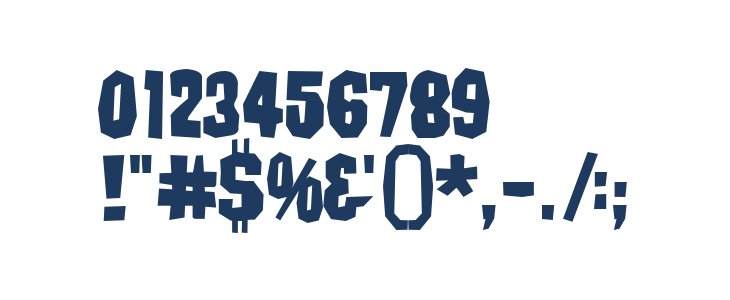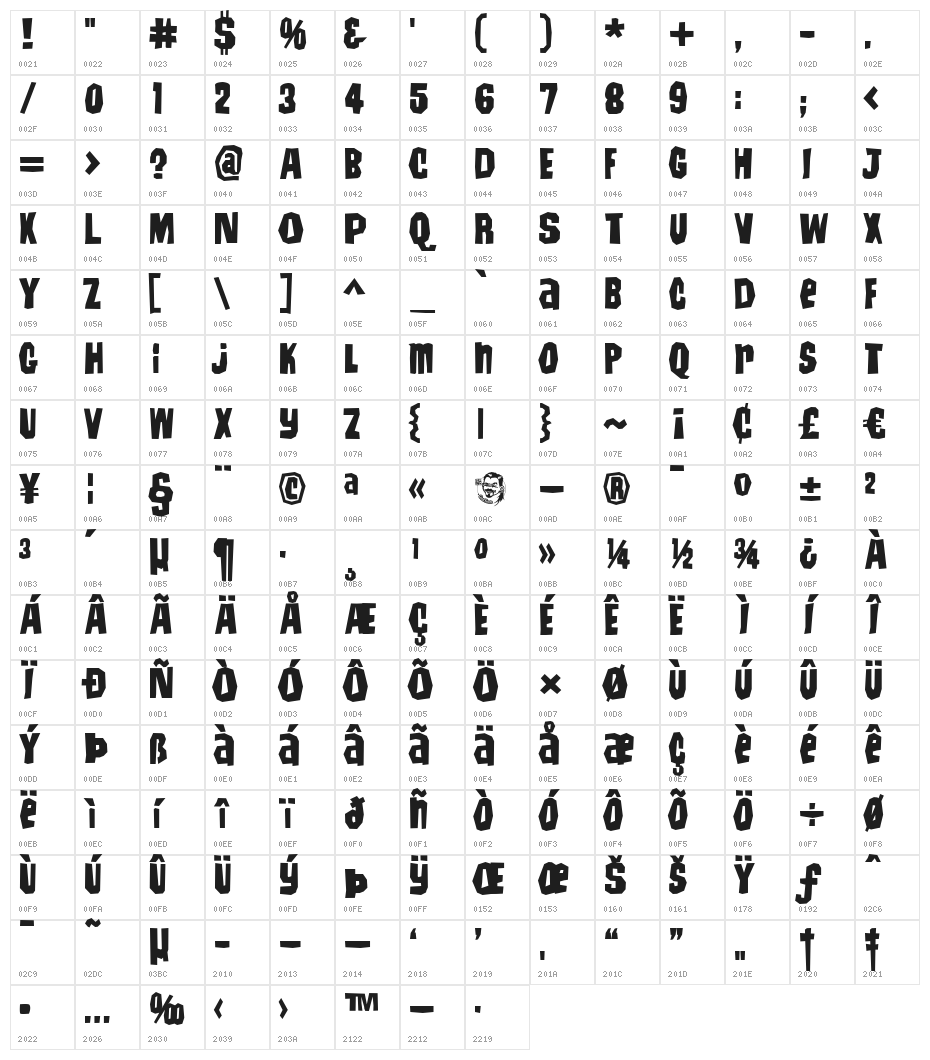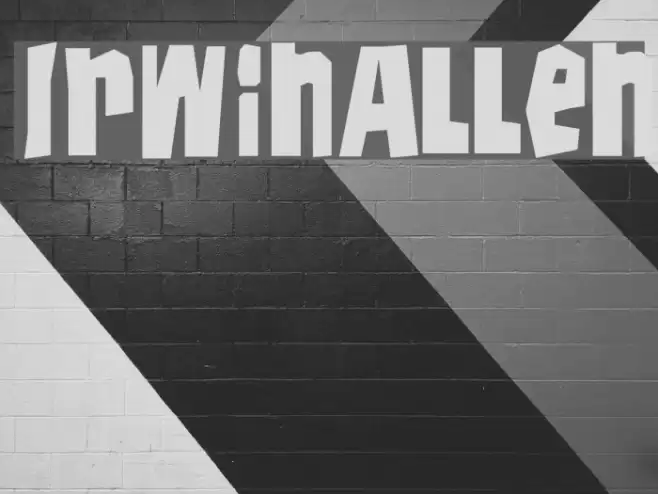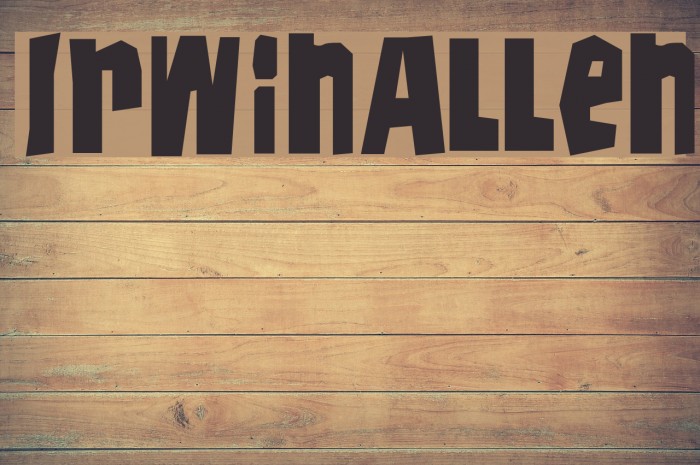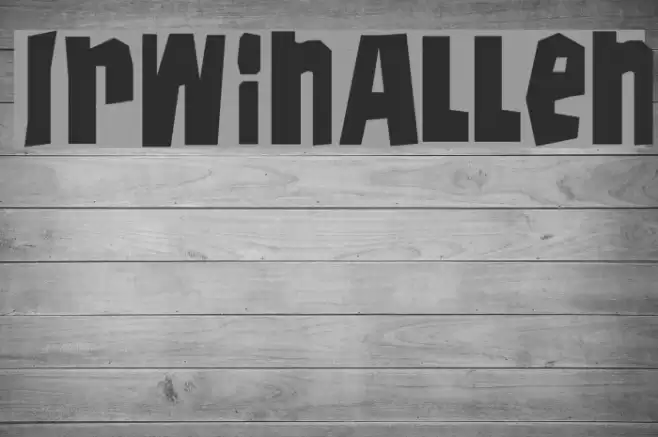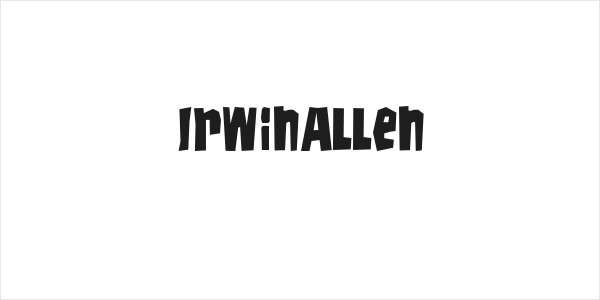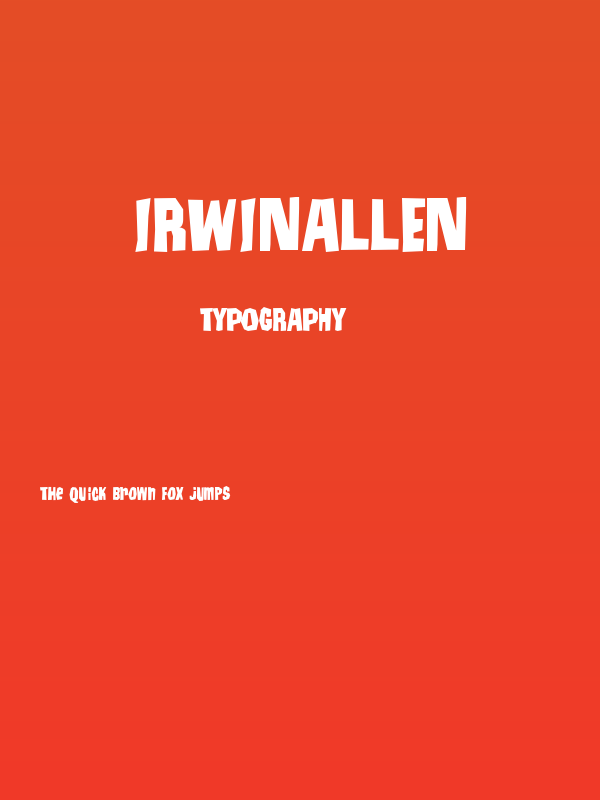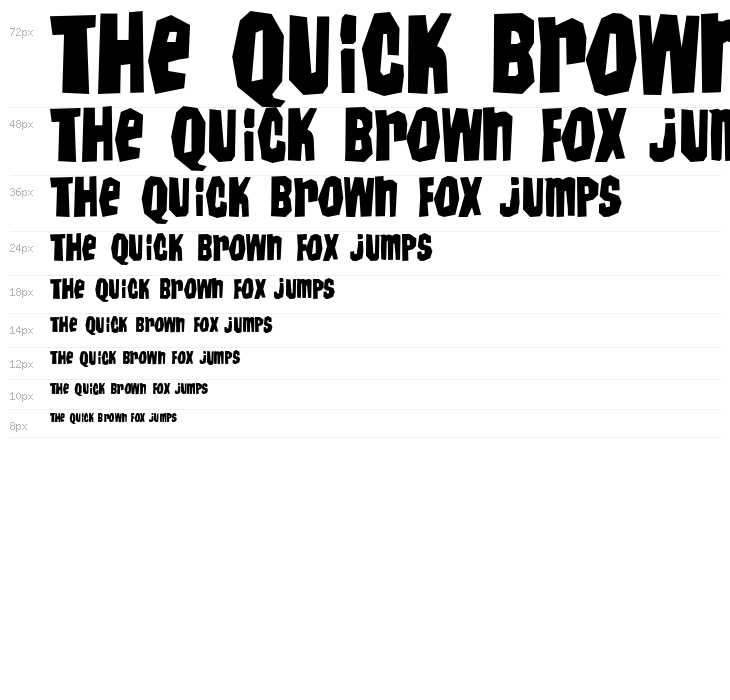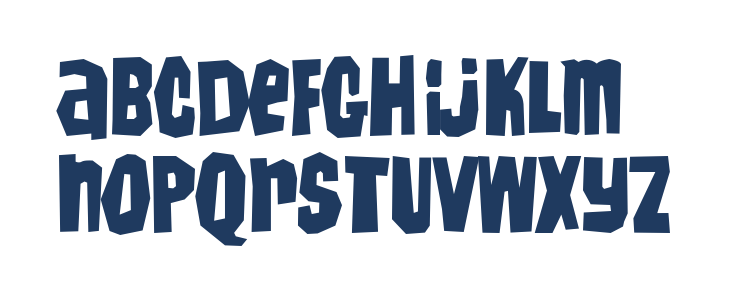
IrwinAllen Font
IrwinAllen Description
This font features a bold and dynamic style with a strong presence, characterized by its thick, angular strokes and irregular edges. The uppercase and lowercase letters maintain a consistent weight, creating a cohesive look. The numbers and special characters follow the same bold design, ensuring uniformity across all elements. The font's unique, rugged appearance makes it stand out, offering a sense of strength and impact. Its design is reminiscent of vintage or retro styles, yet it maintains a modern edge, making it versatile for various creative applications.
| Overall Style | Vintage, Modern |
| Proposed Projects | Ideal for posters, logos, branding, and any project requiring a strong, impactful typeface. |